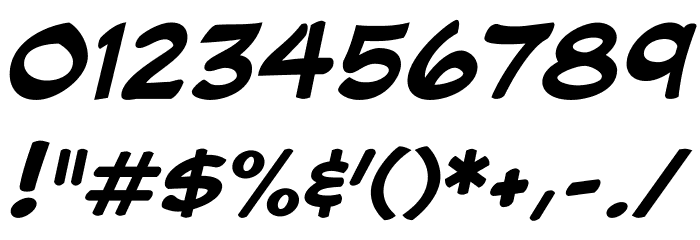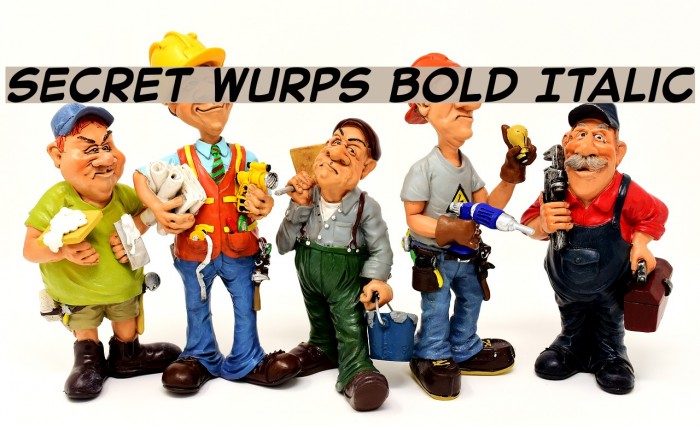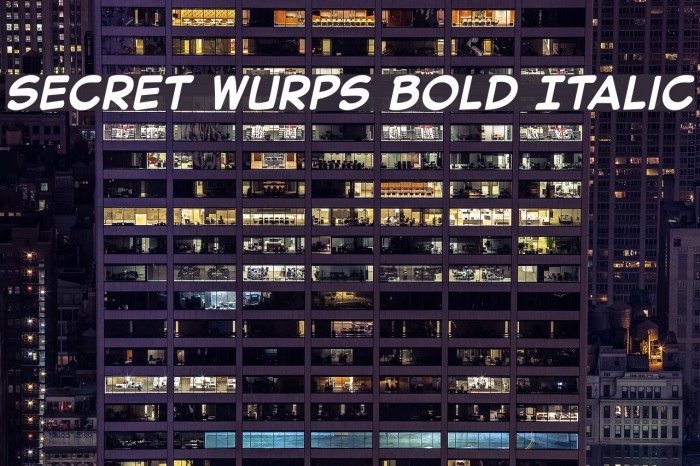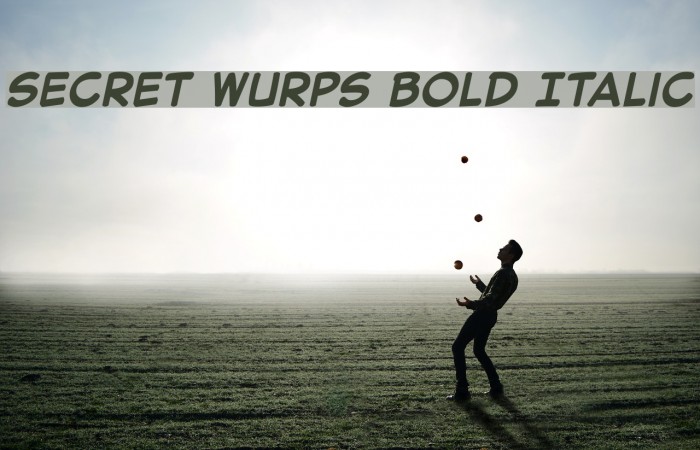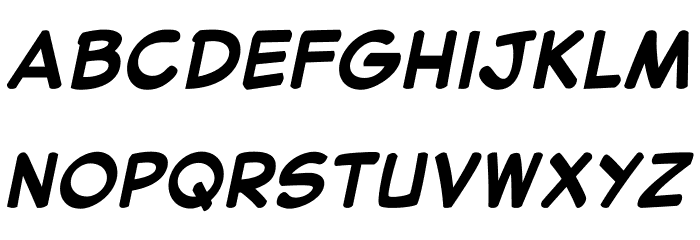
Secret Wurps Bold Italic Font
This font exhibits a bold and italicized style with a playful and dynamic appearance. The characters are slightly slanted, giving a sense of motion and energy. The strokes are thick and consistent, contributing to its boldness. The rounded edges of the letters add a friendly and approachable feel. The font maintains a uniform weight throughout, ensuring readability while still being visually striking. It is well-suited for attention-grabbing headlines or titles, where a sense of fun and informality is desired. The spacing between characters is balanced, neither too tight nor too wide, allowing for easy legibility.
A bold, italicized font with a playful and dynamic style.
• Proposed Projects: Ideal for use in branding, advertising, posters, and any project requiring a lively and informal touch.
• Category: Decorative/Display
• Bold: Yes
• Italic: Yes
• Weight: Bold
• Width: Normal
• Character Spacing: Normal
• Contrast: Low
• Overall Style: Modern
• Use Case: Headlines, Logos